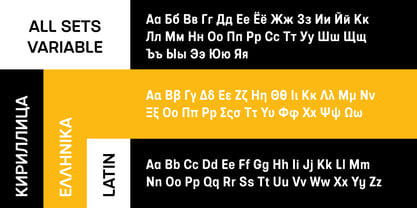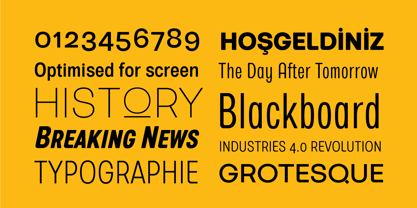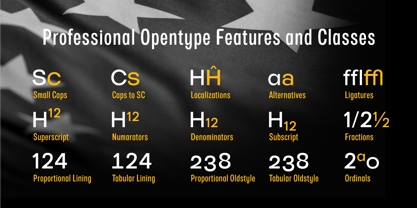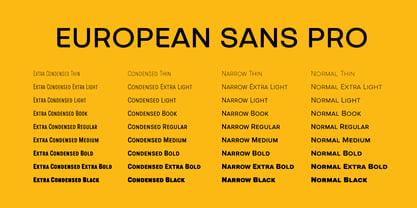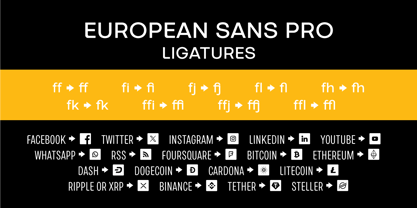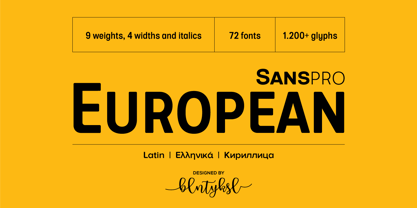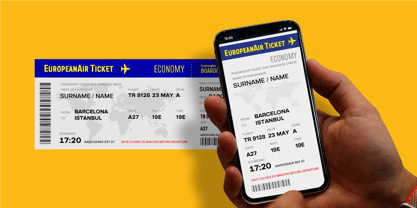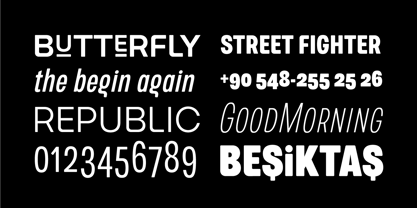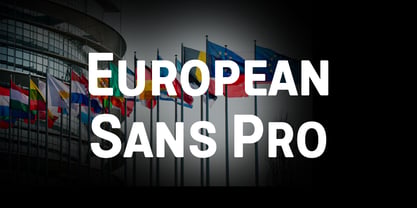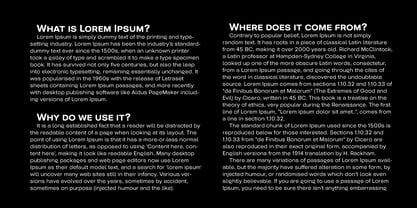
European Sans Pro
EUROPEAN SANS PRO
ABOUT FAMILY:
What makes "European Sans Pro" elegant, friendly and contemporary is its very rounded curves with very open terminals.
"European Sans Pro" has been designed with a higher "x-height" than other fonts in its class to make tiny readability more obvious in any use situation. It will be ideal for use in small sizes such as business cards or mobile applications.
This typeface is also equipped with powerful OpenType features to satisfy the most demanding professionals. It has solid features like case sensitivity, small, true capitals, full ligatures, tabular figures for tables, old style figures to elegantly insert numbers into your sentences and more alternative characters to give personality to your projects.
The extended, "European Sans Pro" supports around 85 languages in the Latin, Cyrillic and Greek scripts, and its non-Latin components were developed with native consultants. With over 1200+ glyphs per style, "European Sans Pro" cares about localised letterforms and has the OpenType features to match.
FEATURE SUMMARY:
- 9 weights: Thin, ExtraLight, Light, Book, Regular, Medium, Bold, ExtraBold, and Black.
- 4 widths: Normal, Narrow, Condensed, and Extra Condensed.
- Matching italics (12º) for all weights and widths .
- Matching small caps for all weights and widths.
- Lining and old style figures (proportional and tabular).
- Alternate characters (A, G, M, N, R, U, a, g, l, m, n, u, y).
- Unlimeted fractions.
- Automatic ordinals (1st, 2nd, 3rd, etc.).
- 24 Dingbats + 19 Social Media and Block Chain icons.
- Extended language support: Most Latin-based scripts (including Vietnamese), Cyrillic, and Greek.
- Extended currency support.